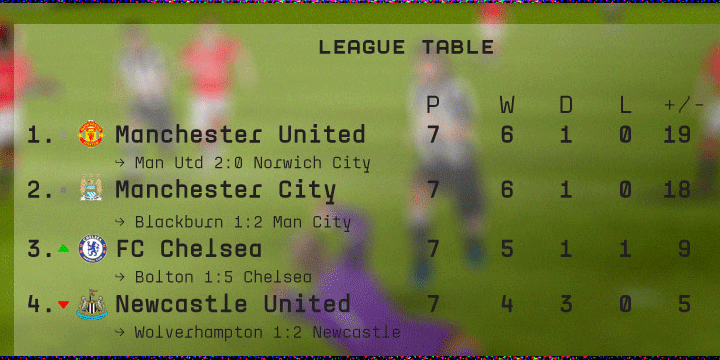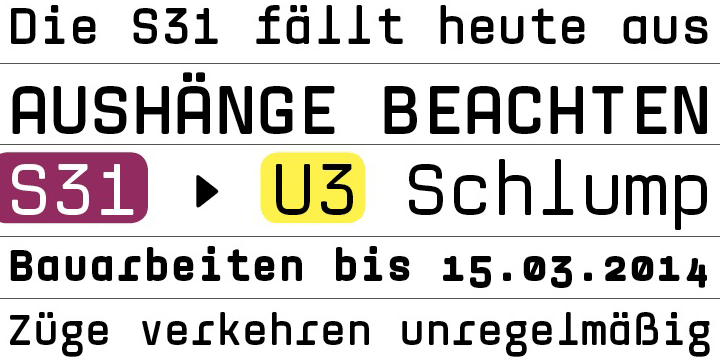
Mingray Mono
Mingray Mono is a sans serif and typewriter font family. This typeface has three styles and was published by Rekord.
Mingray Mono is a stylish Monospaced family in three weights.
It contains old-style figures, small caps, fractions, ligatures, pictograms and arrows.
Mingray Mono supports 85 Latin-based languages.